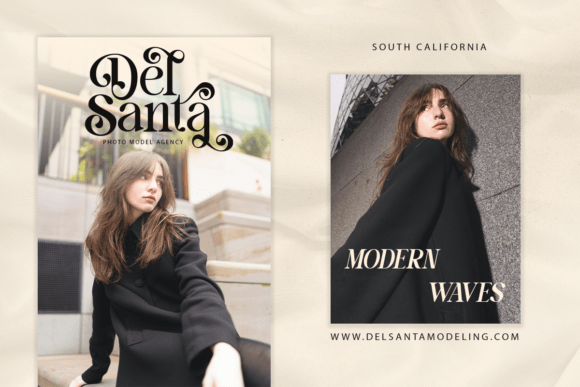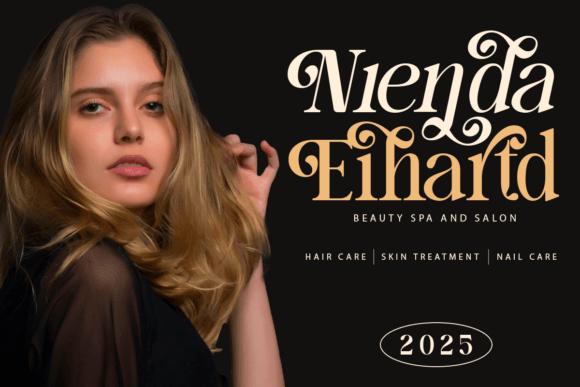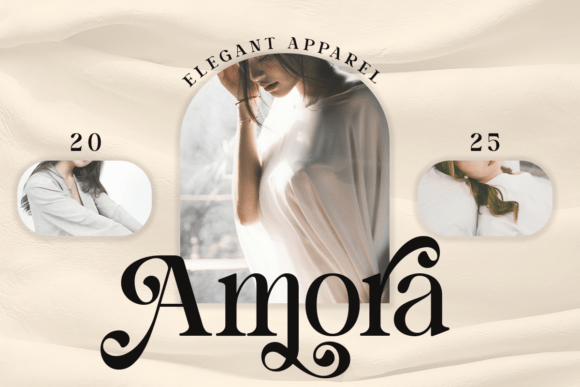
Introduction to Delutiya Font
Imagine you’re a designer, staring at a blank canvas, waiting for the perfect font to bring your creative project to life. The search is over. Introducing Delutiya Font, a modern elegant serif font that’s about to become your new go-to design resource. Whether you’re crafting a wedding invitation, designing a logo, or creating a website header, Delutiya Font is the perfect companion to help you convey elegance and sophistication.
With its easy-to-read design and visually interesting alternates, Delutiya Font is a high-quality addition to any design project. And the best part? It’s available for a free download, making it an invaluable asset for designers who want to elevate their work without breaking the bank.
- Delutiya Font is a free design resource ideal for creative projects requiring a unique touch.
- Delutiya Font features a unique, hand-drawn style with a range of characters and symbols to enhance creative projects.
Honest Review: Delutiya Font
I recently had the chance to try out the Delutiya Font for a creative project, and I must say it’s been a pleasant experience. The font is available as a free download, which is always a great starting point for any design resource.
One of the things that stands out about the Delutiya Font is its high quality. The font is well-designed, with clear lines and a consistent aesthetic that makes it easy to use in a variety of contexts. I was particularly impressed with how well it works on a transparent background, which is often a challenge for fonts to pull off.
- Clear lines and consistent aesthetic
- Works well on transparent background
- May not be suitable for very formal or professional projects
- Limited customization options
Overall, I’m impressed with the Delutiya Font and would definitely consider using it again in the future. Its high quality and versatility make it a great addition to any design resource collection.
Use the Delutiya Font with a transparent background for a unique and eye-catching effect. Experiment with different font sizes and colors to enhance your design. You can also pair it with other high-quality fonts for a more creative project.
The Delutiya Font is suitable for various projects, including logo designs, social media graphics, and marketing materials. Its unique style makes it perfect for creative projects that require a bold and eye-catching font.